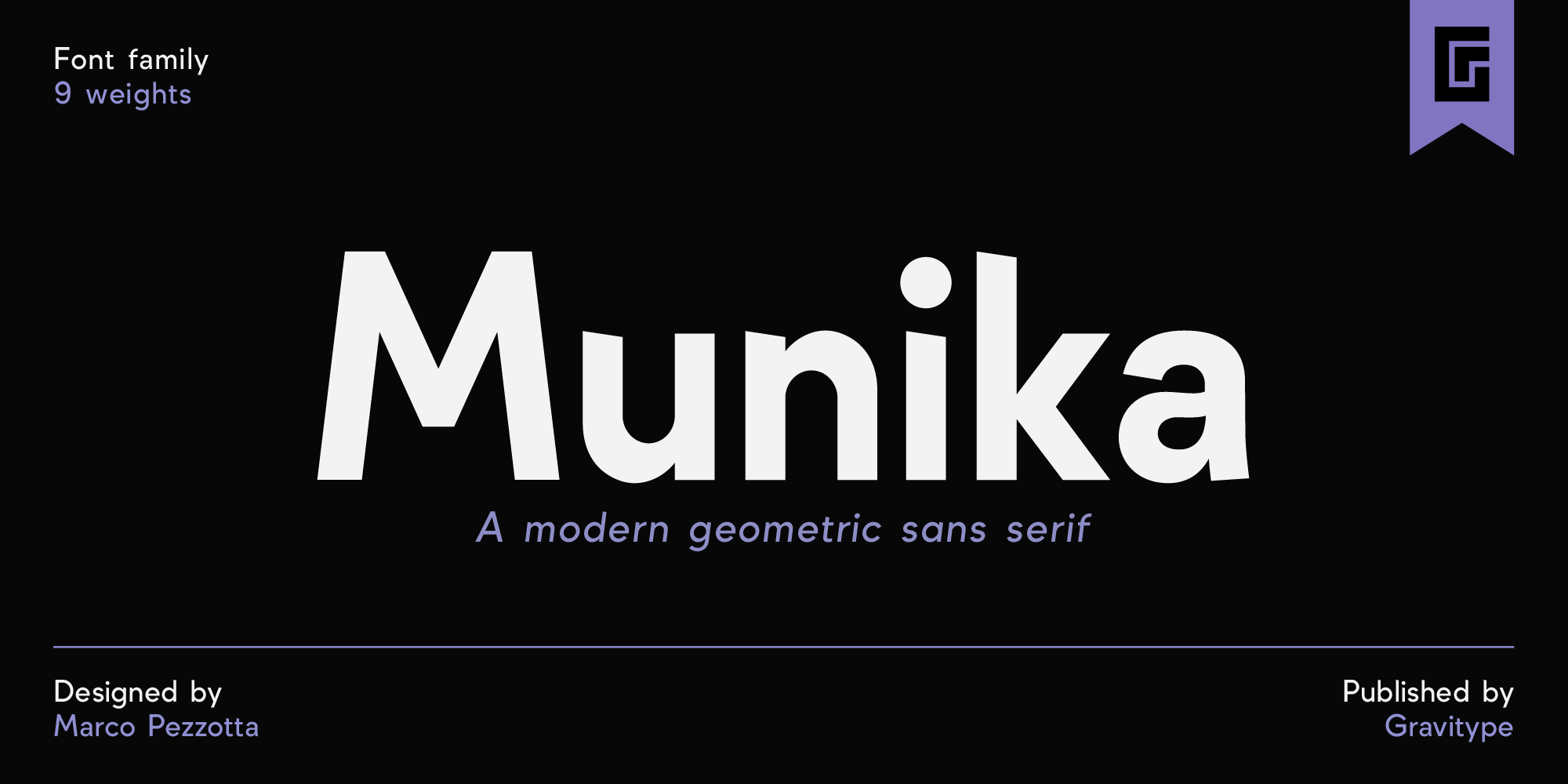
Discover the sleek Munika Font Free Download, a modern sans serif typeface designed by Marco Pezzotta and published by Gravitype that blends geometric precision with humanist details. This font is perfect for creating a clean, accessible aesthetic. However, please note that you must purchase this font for commercial use. For testing purposes, you can download it for free and explore its versatile style.
The Munika Font is ideal for various applications, such as designing professional logos, crafting minimalist branding materials, creating readable web typography, or enhancing editorial layouts and signage. Its versatility, with 380 glyphs including ligatures and an alternative letter “a,” makes it a top choice for projects that demand clarity and a modern look.
Why is the Munika Font Free Download so exciting? Its balanced structure, with clean lines and nine weights plus matching italics, offers exceptional readability and aesthetic flexibility. The font’s unique personality, rooted in clarity and accessibility, ensures your designs stand out with a fresh, professional appeal, perfect for rebranding or digital interfaces.
The Munika Font family includes 18 styles: Thin, Thin Italic, Light, Light Italic, Semilight, Semilight Italic, Regular, Regular Italic, Medium, Medium Italic, Semibold, Semibold Italic, Bold, Bold Italic, Heavy, Heavy Italic, Black, and Black Italic, providing flexibility for diverse design needs. These variations are ideal for both print and digital media.